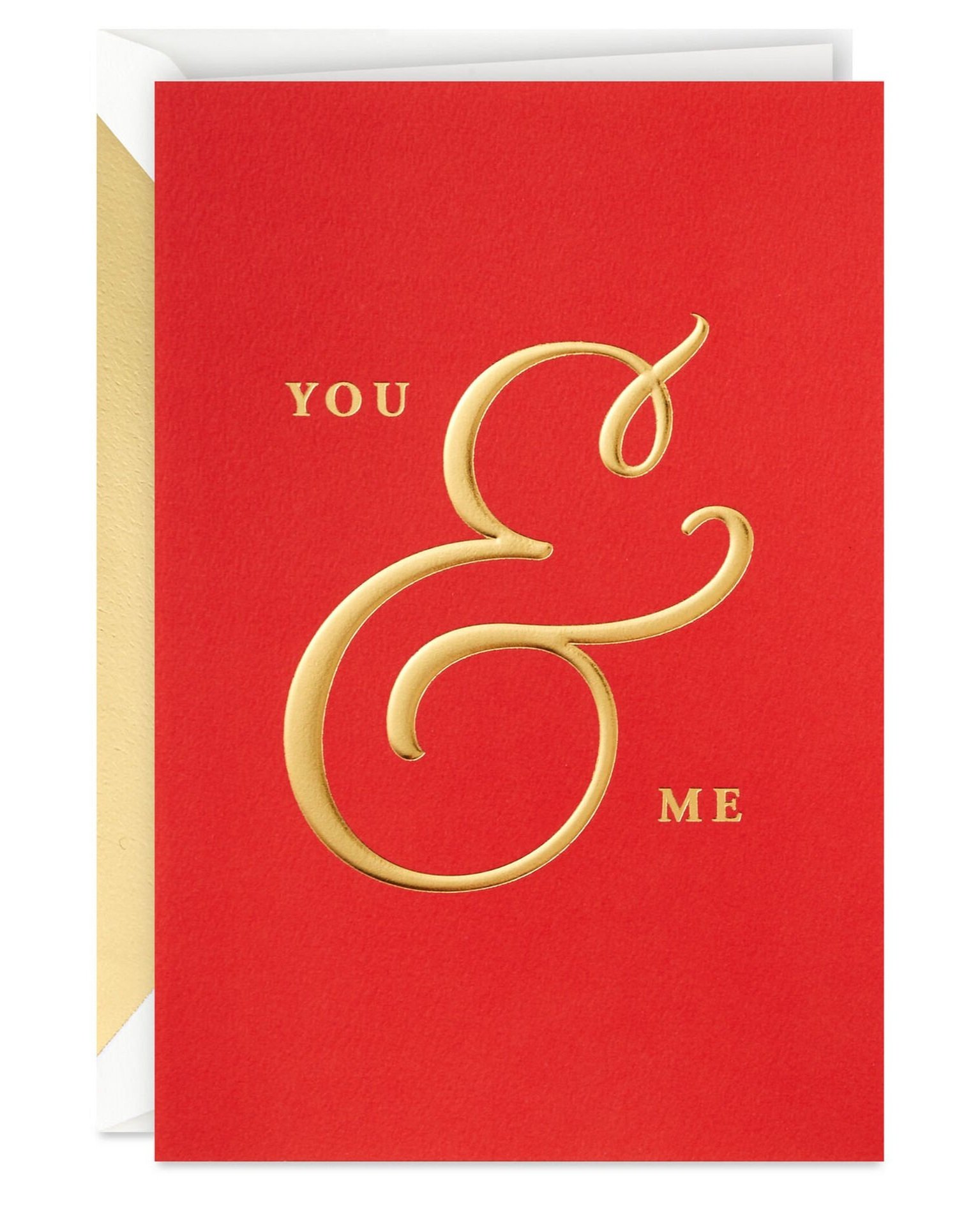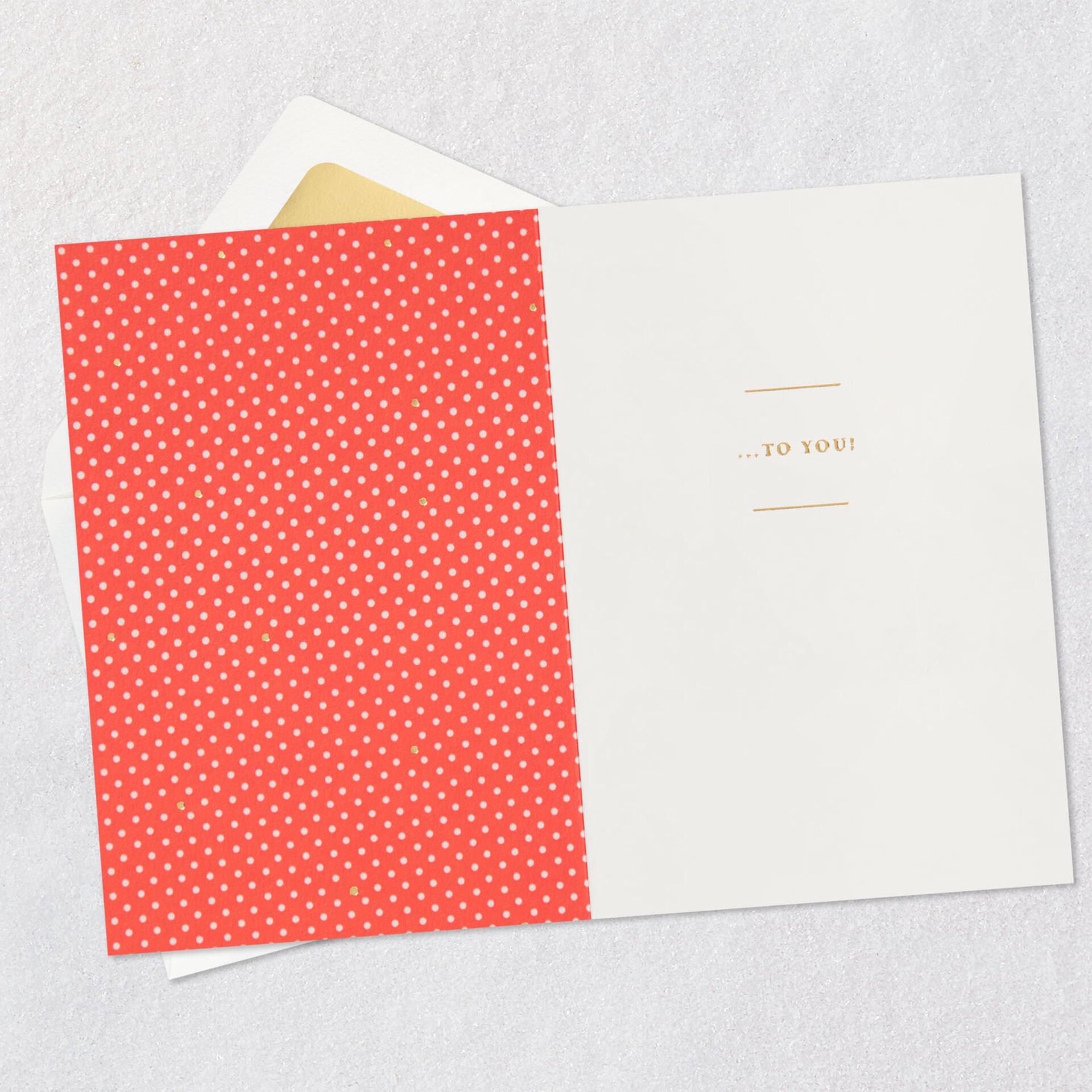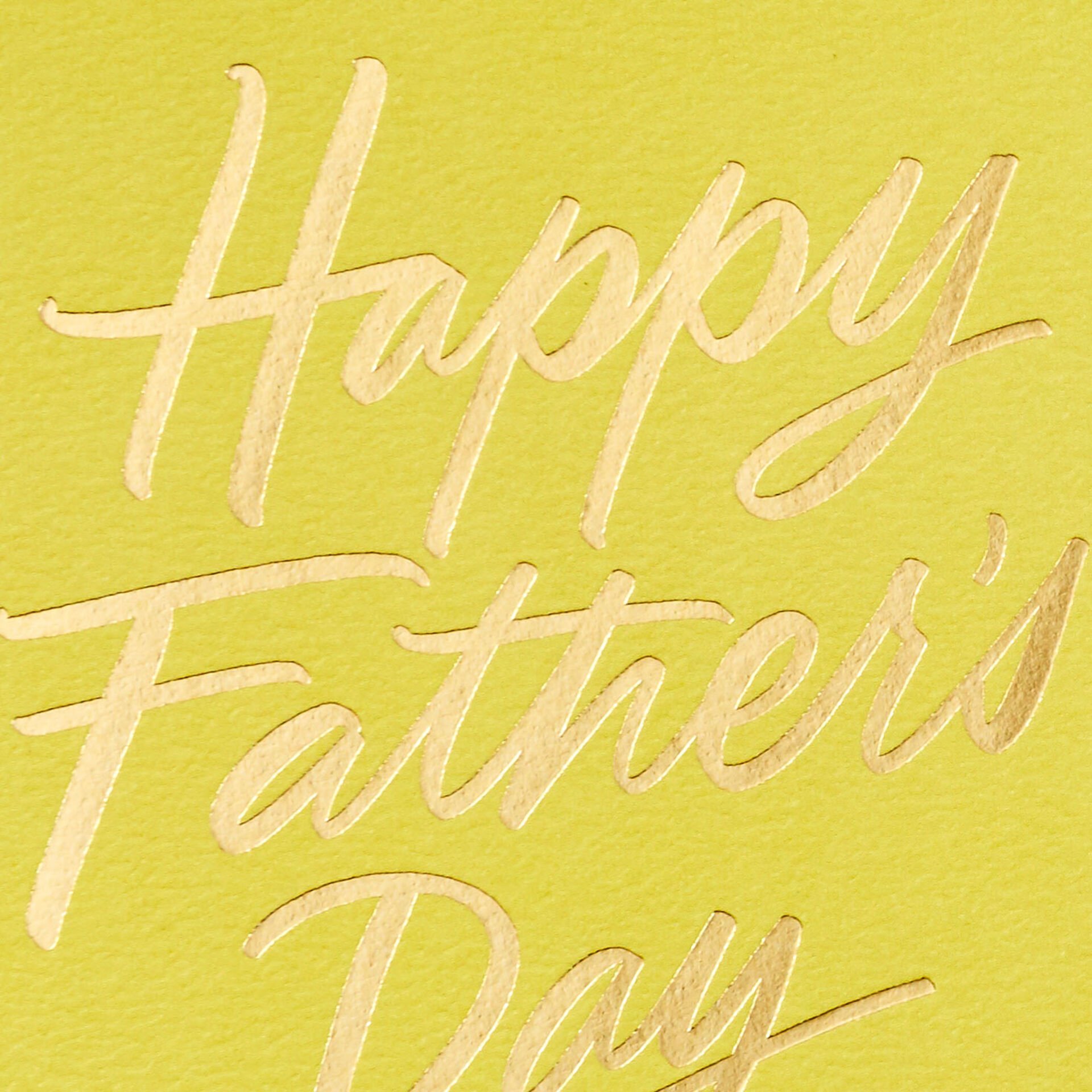
HFD for Signature Studio
Father’s Day will be here before we know it and I was excited to get to create lettering for several Hallmark cards and gift bags this year. First up: this casual script for Signature Studio Collection.
HVD for Signature Studio
Happy Valentine’s Day! Here is one last card I created lettering for that is part of Hallmark’s Signature Studio Collection. I hope you get the chance to celebrate with your loved ones today – whether that’s a dinner out or a night in with girlfriends! XOXO
You Are Loved for Signature Studio
Today I’m sharing another beautiful Val card for Hallmark’s Signature Studio Collection!
You & Me for Signature Studio
Hallmark’s Signature Studio Collection included a few cards for Valentine’s Day! I love how my ampersand pops off the bright red background.
Then, Now, Always for Signature Studio
Valentine’s Day is right around the corner and today I’m sharing this lovely card I created lettering for that is part of the Signature Studio line. I also think it would be perfect for an anniversary, too!
Merry Christmas for Signature Studio
With this last Signature Studio Collection card, I’m signing off to celebrate with family. Wishing all who celebrate a Merry Christmas!